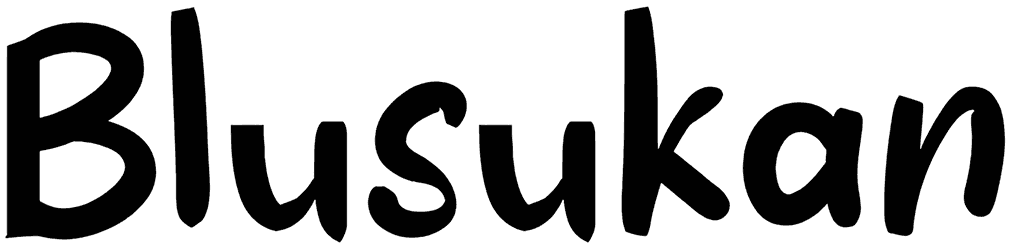
b Blusukan Font
For giving your artwork no matter it’s a book cover or a business card, some organic senses, you can try simple fonts. b Blusukan is a great choice that can change the whole mood of your content.